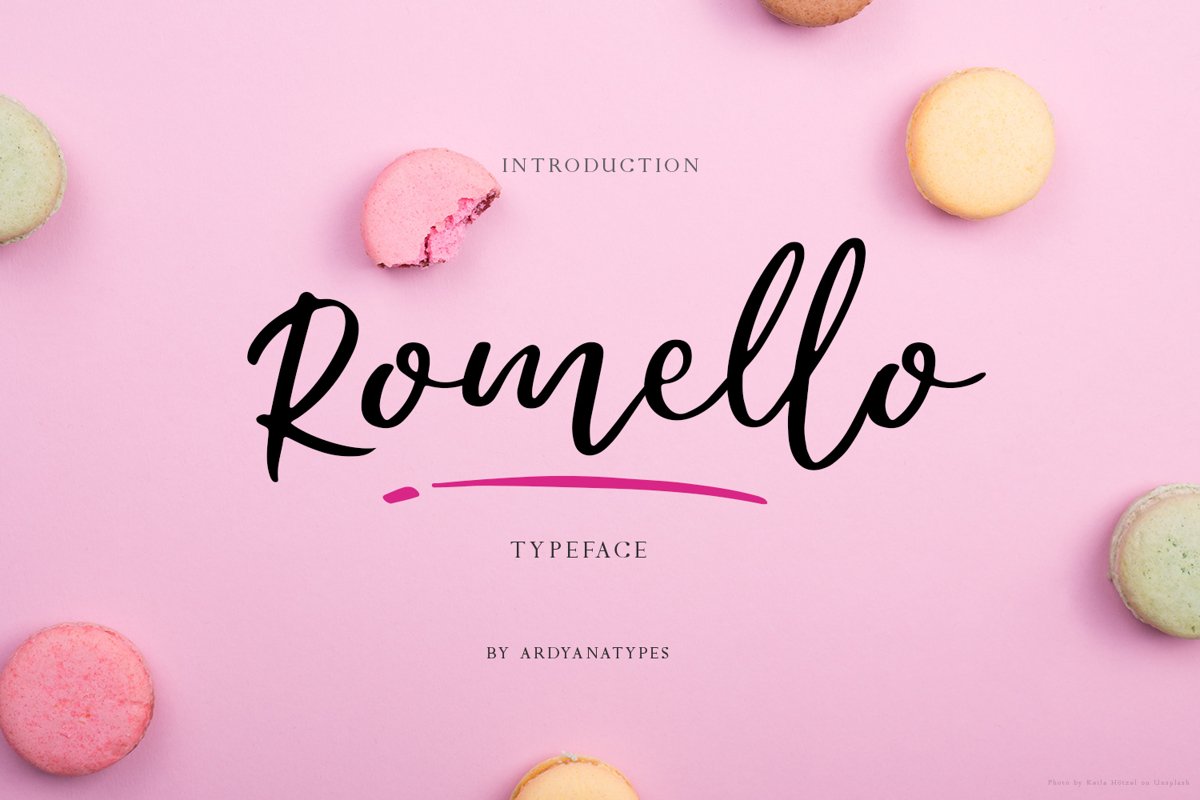
Romello is a pretty typeface that was made to make your designs look more funny and pretty. Romello is also accompanied by Alternative characters that embellish every form of writing, Romello is the perfect choice to use for poster designs, signatures, logos, quotes, album covers, business cards, product designs, and many other design projects. Romello has its own charm when used. We make this font look elegant, classy, easy to read, stylish, easy to remember, and easy to use. Guides to access all alternates: http://adobe.ly/1m1fn4YHighlights: